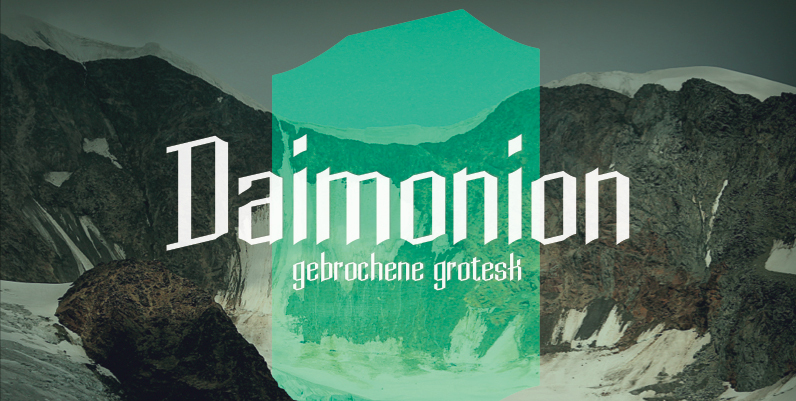
Daimonion by Clemens Bergmann is a free modern Gothic display font with towering, narrow letters, severe diagonal cuts, and pronounced changes in stroke width throughout. Long vertical strokes dominate its silhouette, and the sharply folded joins give the lettering an austere architectural quality far removed from the dense texture of traditional blackletter faces.
Pointed arches and ironwork are an obvious visual match, so the font can become part of the stark imagery on dark album packaging, game graphics, and theatrical event posters. For publishing, its slender, ceremonial forms can set the identity of horror book covers and occult-themed magazine features.